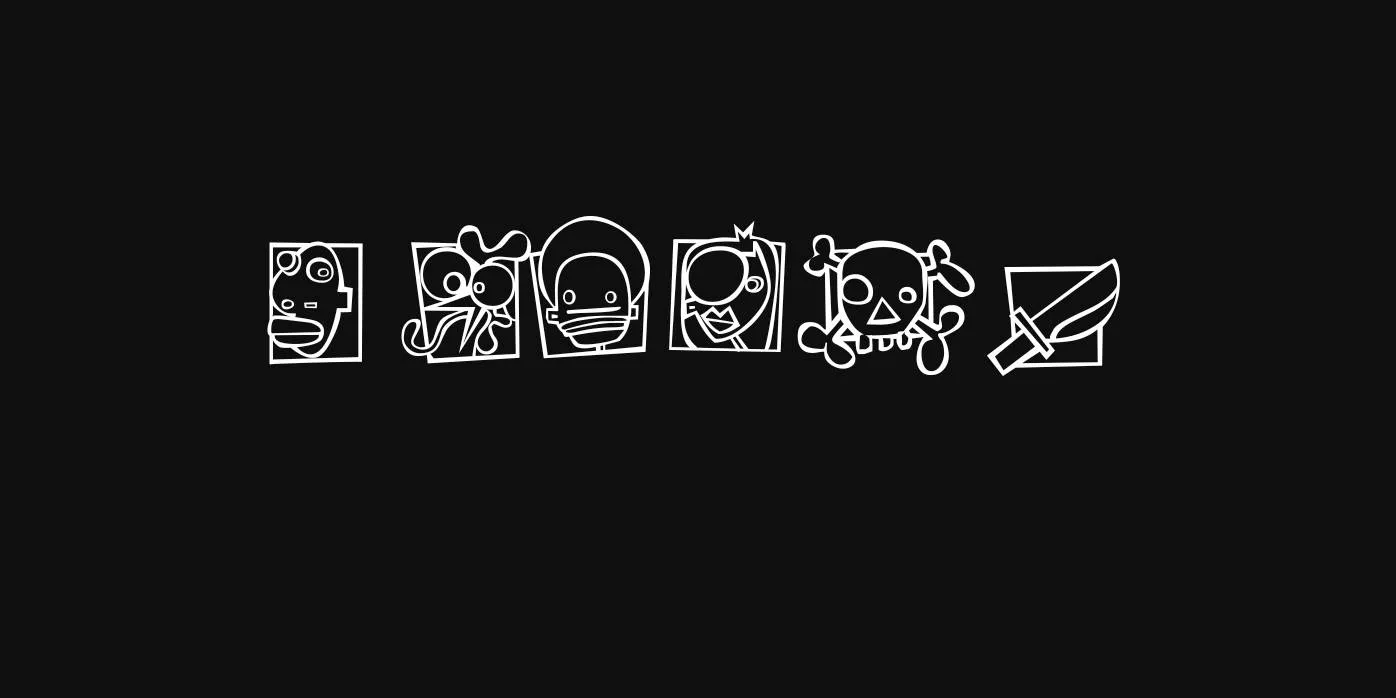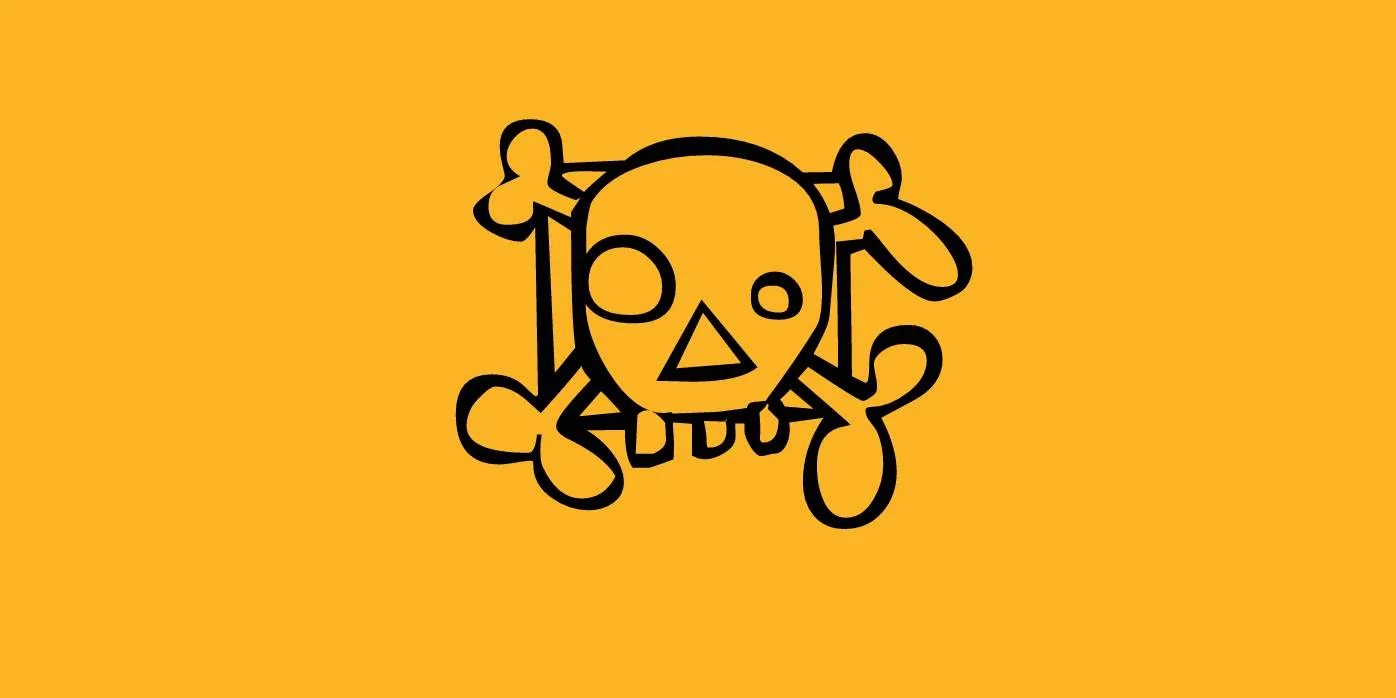
Shn PC Font
Shn is the designer of this typeface. Shn PC Font is a dingbat type of font.  This typeface has non-lettered characters that have fantastic looks. There are a lot of devices that show good respect for this font. I want to tag some of them such as computers, Mac OS, Linux, Android, and IOS.